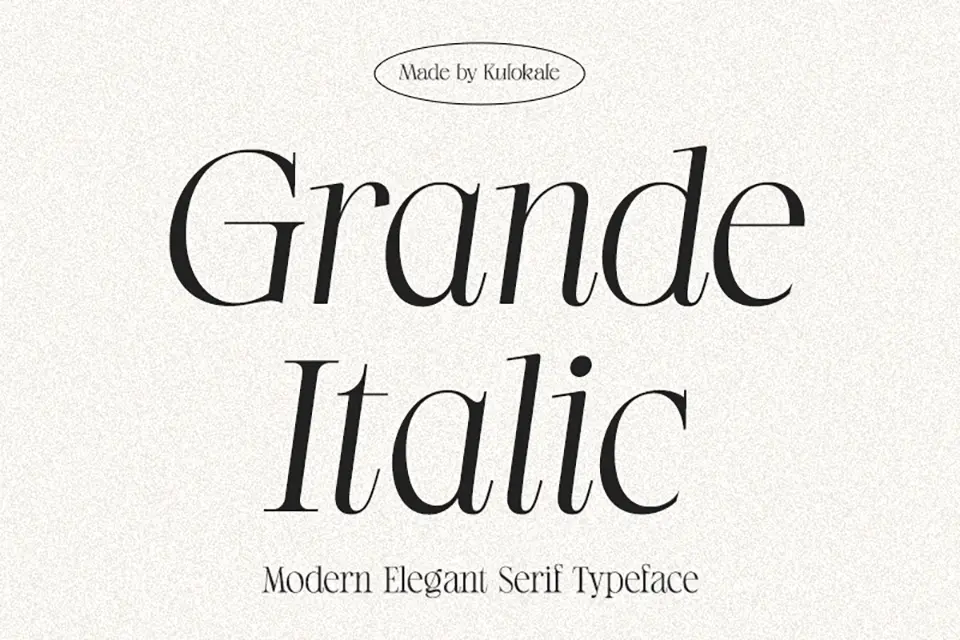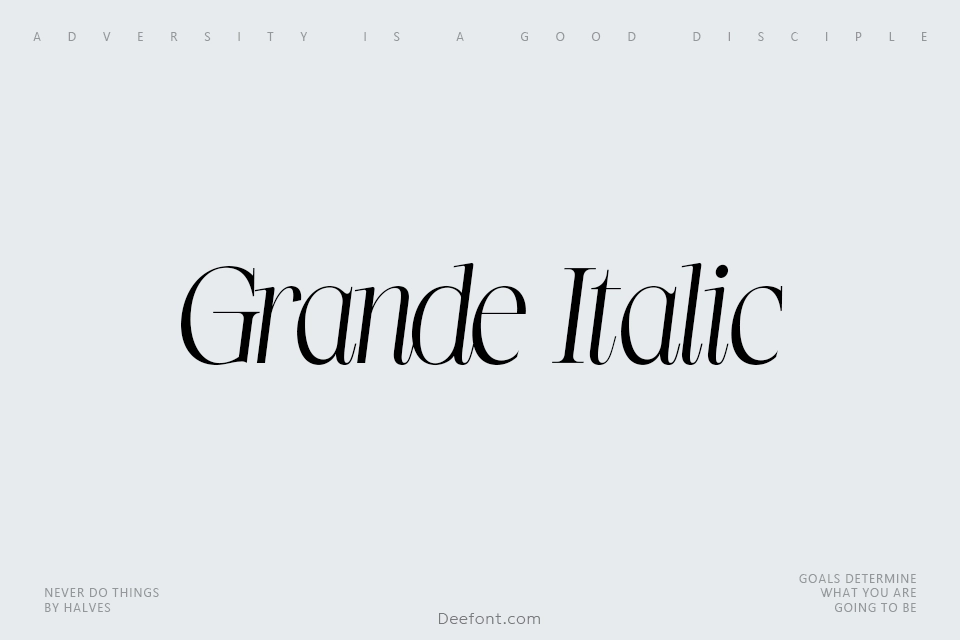
Grande Italic Font
Grande Italic is an elegant serif typeface featuring classic italicized letterforms with elongated proportions that exude sophistication and luxury. Designed by Kulokale Studio, this font draws inspiration from historical stone engravings and traditional serif typography, combining timeless elegance with modern refinement. The family includes two styles with bold-italic weights, offering strong visual impact while maintaining graceful curves and high contrast. Perfect for contemporary branding projects, luxury magazine covers, premium product packaging, editorial design, invitations, and high-end advertising campaigns. Its versatile nature makes it suitable for both display headlines and body text across print and digital media platforms.